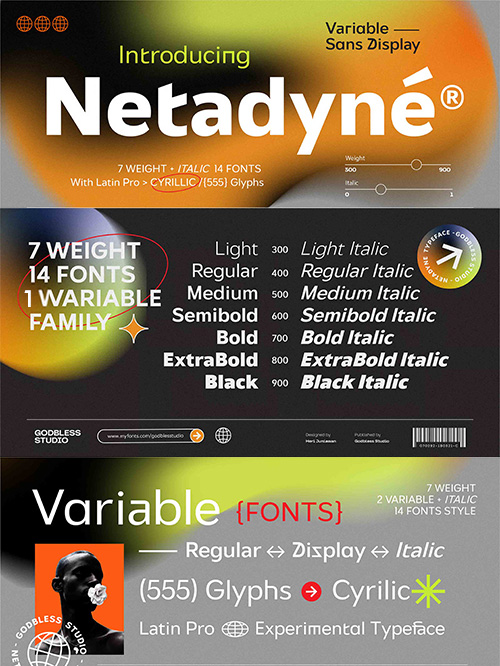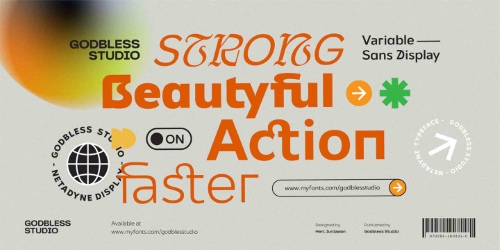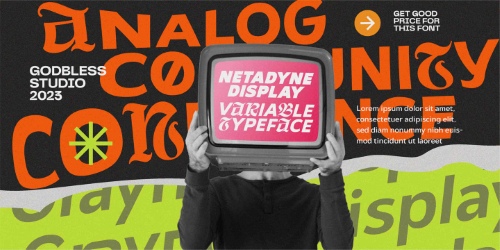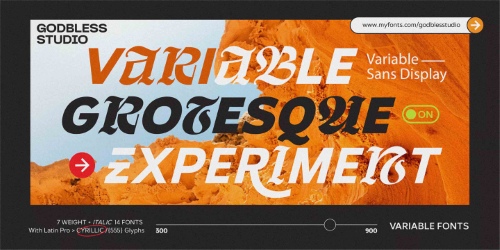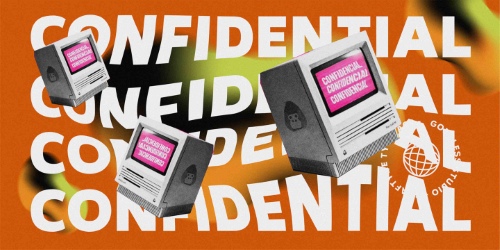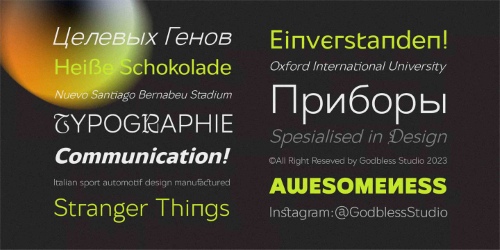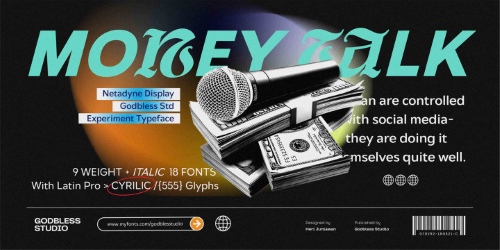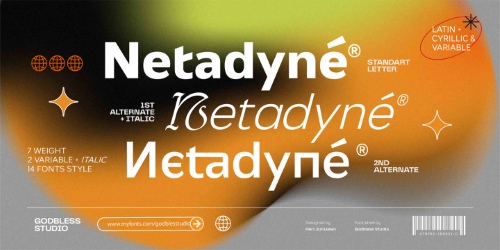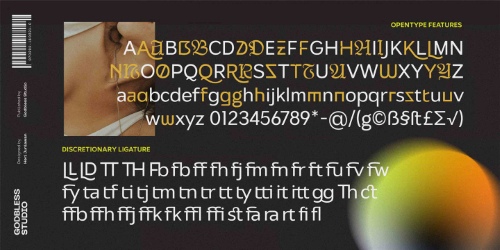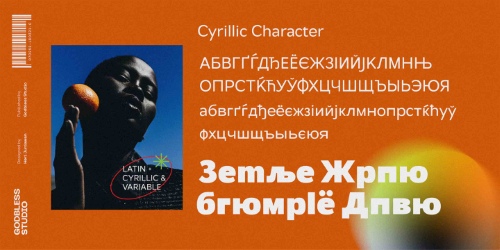
Netdyne - 14 Styles + Variable Font Family
- Netadyne was created experimentally following a futuristic style recipe with characters made to keep up with today's developments and also combined with various unique alternate variations to produce a font with a very charismatic and sturdy concept. Netadyne is a variable font that has 7 weights from light to black and also includes italic. Netadyne is a versatile font system, designed primarily for display uses with a need of visual impact.